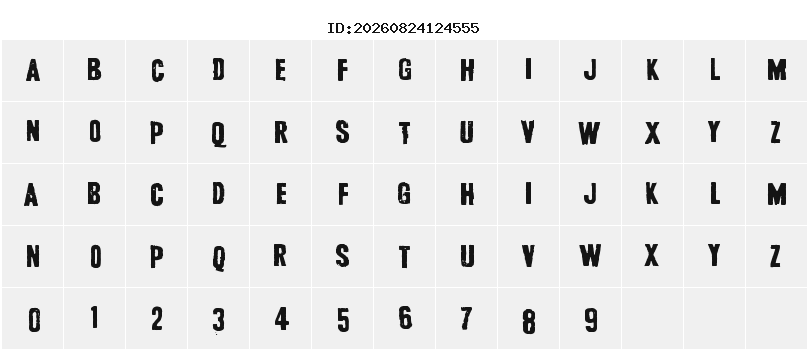
Safe from harm Preview
• Font Name: Safe from harm
• Full Font Name: Safe from harm
• Version: Version 1.00 November 2, 2015, initial release
About Safe from harm.ttf
Safe from harm.ttf is a modern, elegant sans-serif font designed for ultimate readability and visual harmony. Perfect for branding, headlines, web design, and print materials.